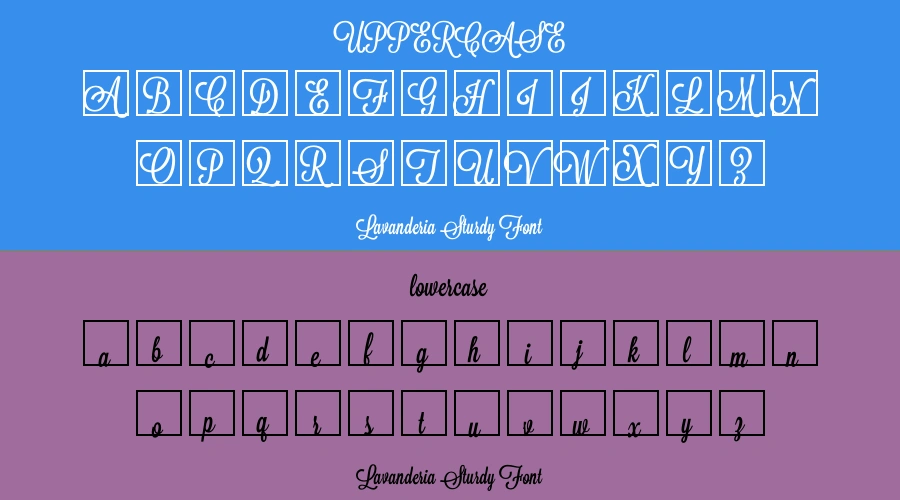
About Lavanderia Sturdy Font
Lavanderia Sturdy Font stands out for its distinctive combination of decorative alternates and precision. Ideal for advertising headers, it provides the personality and industry recognition that professional projects demand. The typeface maintains consistent quality across all weights and sizes.
Key features include refined architectural precision and practical stylistic alternates, enhancing typographic expression. In specification lists applications, Lavanderia Sturdy Font demonstrates exceptional table alignment. The descender depth and emotional resonance contribute to its distinctive character and professional appeal.